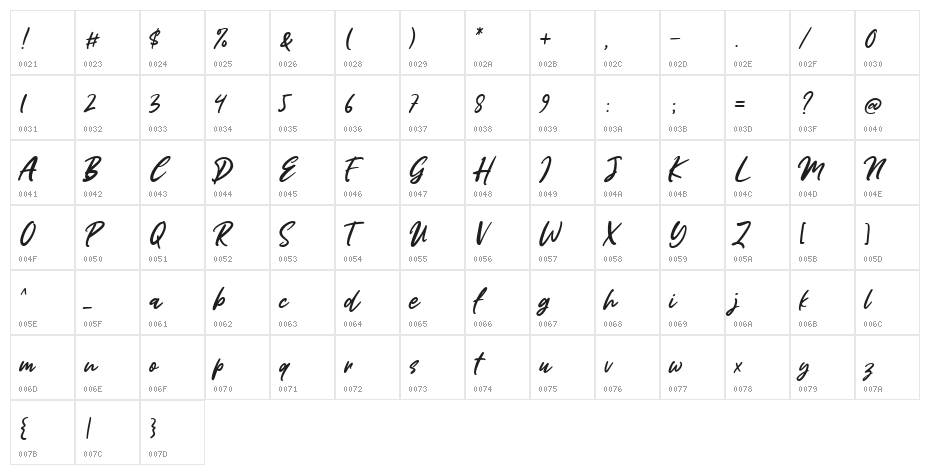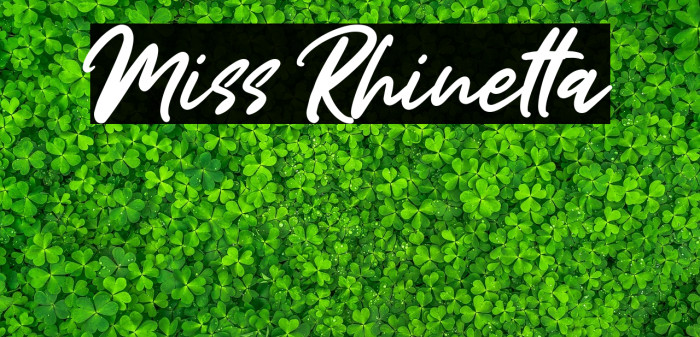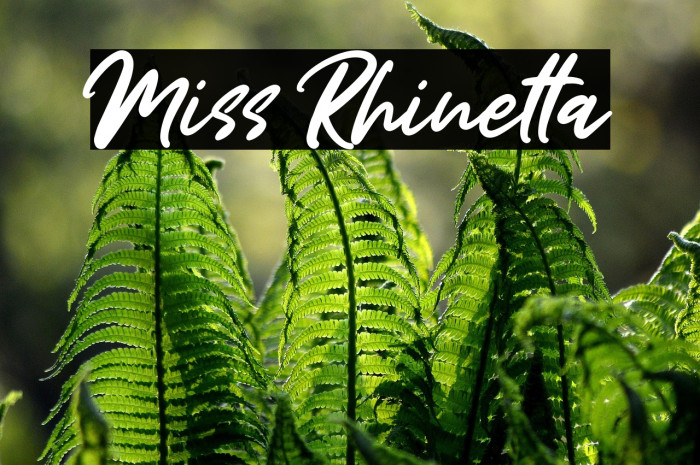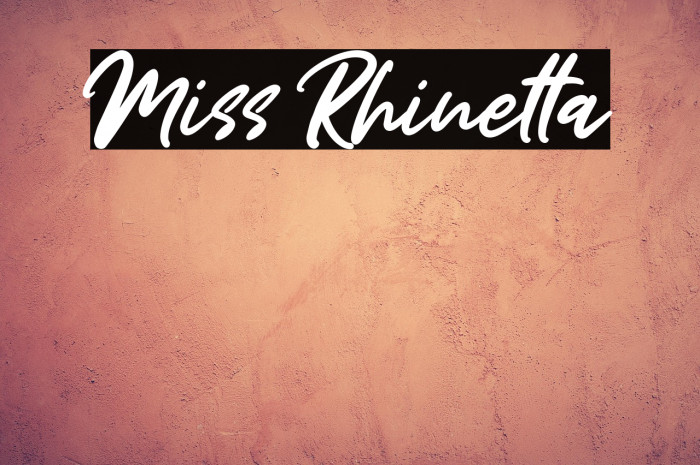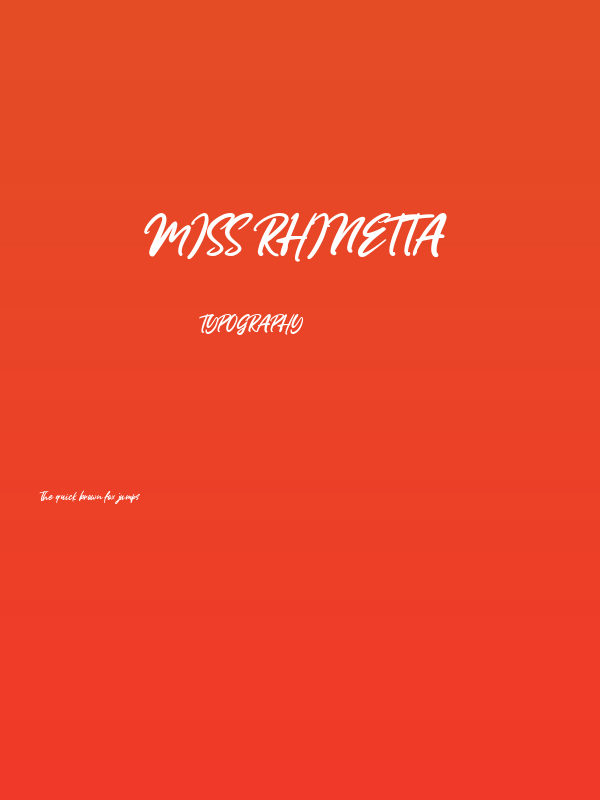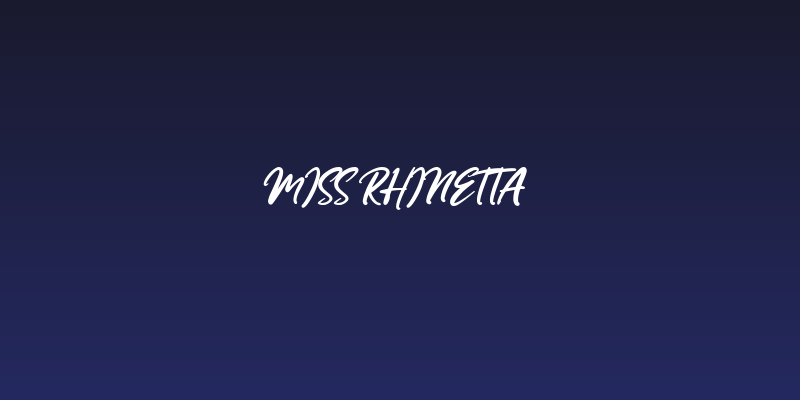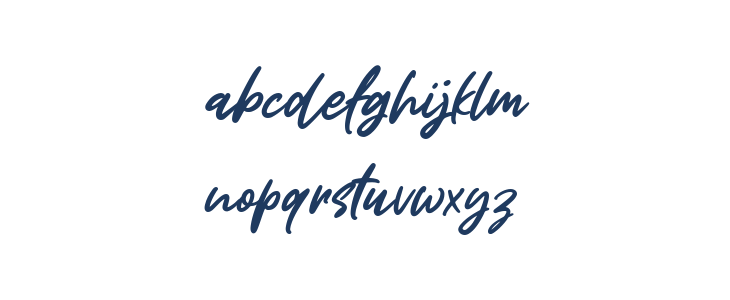
Miss Rhinetta Font
Miss Rhinetta Description
This font exudes a dynamic and energetic feel with its bold, flowing script style. The characters are interconnected, giving it a handwritten, personal touch. The uppercase letters are particularly striking, with sweeping curves and a sense of movement. The lowercase letters maintain the same fluidity, ensuring consistency throughout. Numbers and special characters are crafted with the same attention to detail, making them seamlessly fit with the overall design. This font is perfect for projects that require a personal, yet professional touch, such as invitations, branding, and creative designs. Its bold strokes and artistic flair make it stand out, while still being legible and versatile.
| Use Case | Logos, Headlines, Invitations |
| Proposed Projects | Ideal for invitations, branding, creative designs, and personal projects. |